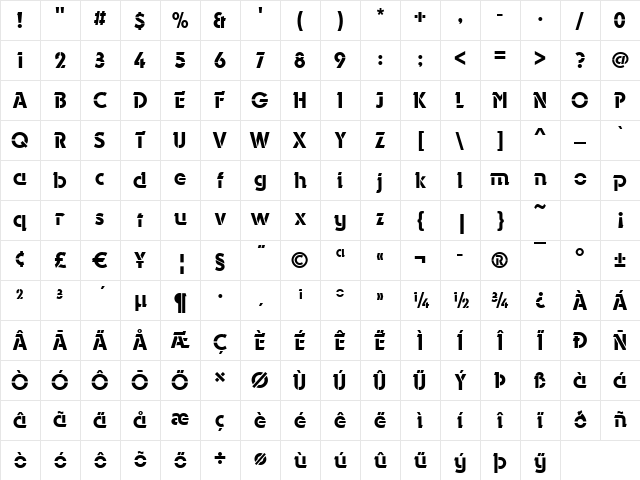
Durango-Alt-Medium Regular
Design Context for Durango-Alt-Medium
Durango-Alt-Medium is a composed and adaptable typeface that performs quietly and consistently across a wide range of design contexts.